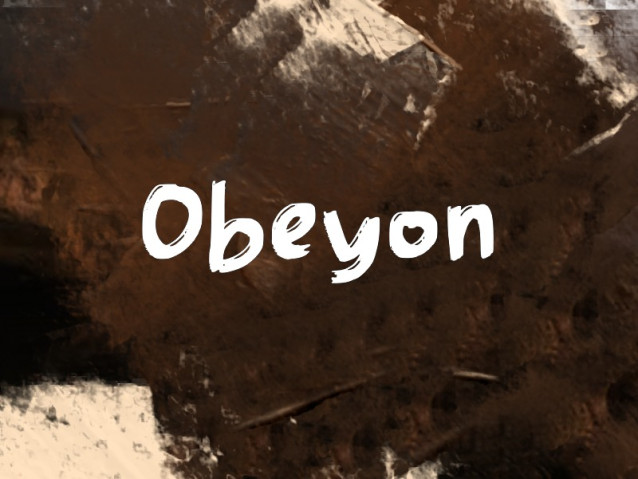
Obeyon Font
Obeyon Font is a simple and modern display font suitable for quotes, logos, headings, titles, and many more. Use it on any of your creative projects, and your designs will become outstanding!